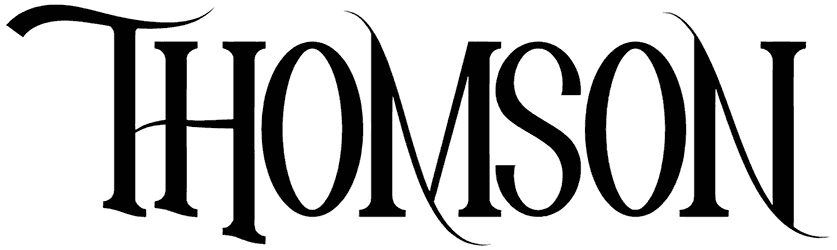
Thomson Font
Thomson is a serif font that lacks lowercase letters and numbers but otherwise looks great. It works wonderfully to give your audience a sense of nostalgia.